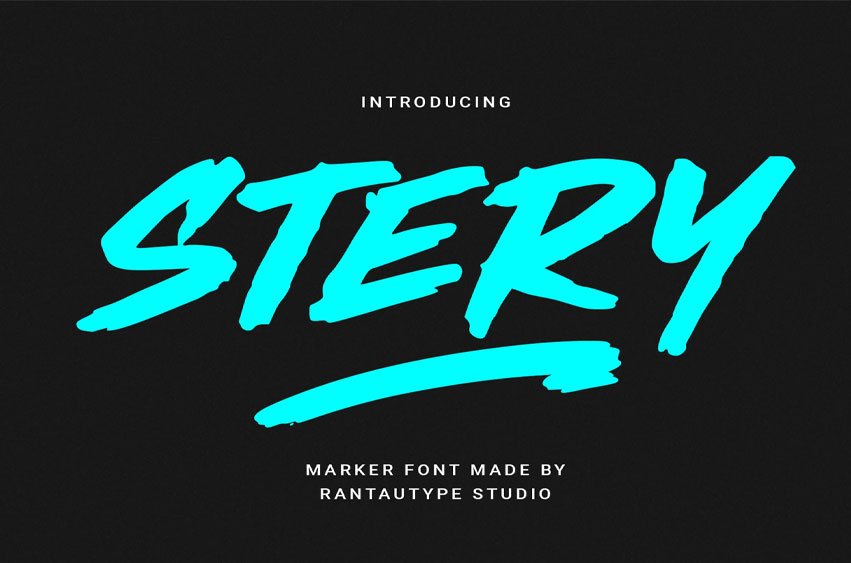
Stery Marker Font
Stery Marker Font is marker font brings bold energy, natural movement, and expressive personality into every design. Inspired by authentic handwritten strokes, this typeface captures the raw texture and fluid rhythm of a real marker pen, creating a casual yet confident visual style.
Stery is a perfectly choice for any creative endeavor, creating, modern, lifestyle design such as logotype, title, cover, branding, display and magazine, social media posts, advertisements, printed quotes, product packaging, corporate brand, product designs, labels, photography, watermarks, special events and any other project with modern touch.